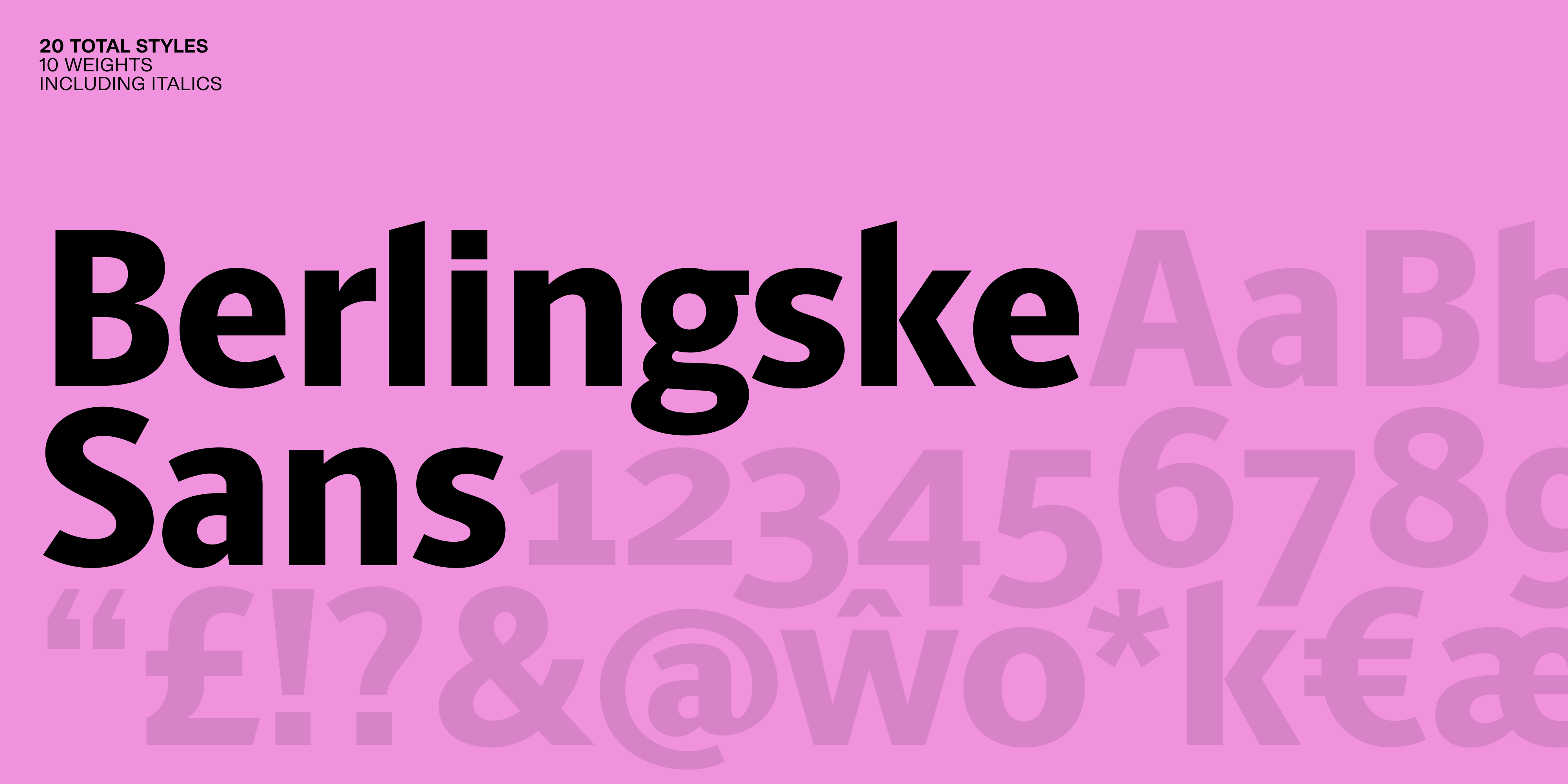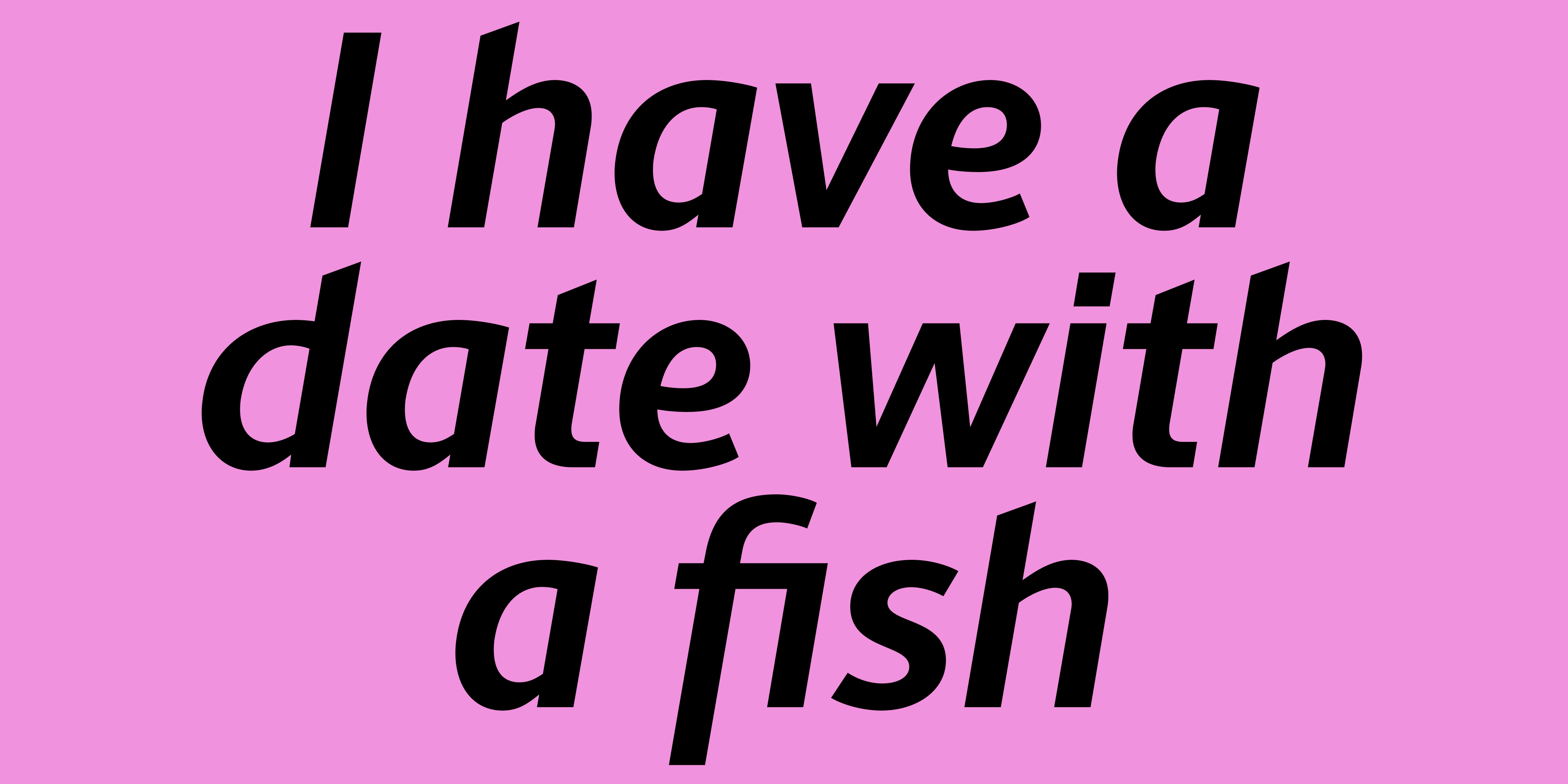
Berlingske Sans
Designer Jonas Hecksher
Berlingske Sans has a very clear and open expression with a cool touch referencing the serif proportions, as seen in the humanist style. This design is drawn very open, especially prominent in the letters a, c and s, which showcase the dynamic and light expression of the Sans. The legibility is excellent, irrespective of it is use for body text or headlines.